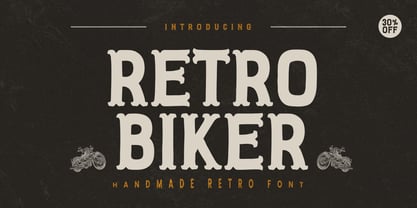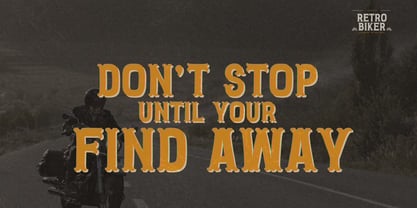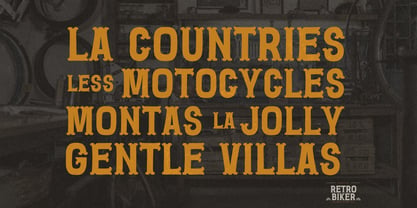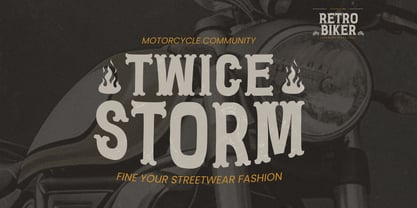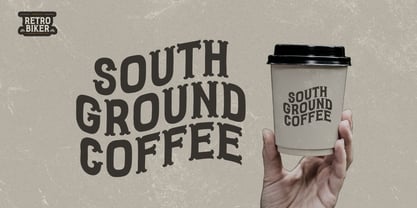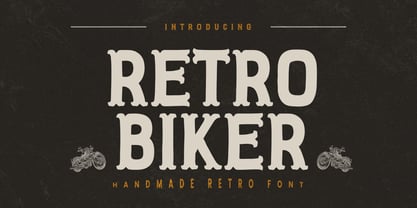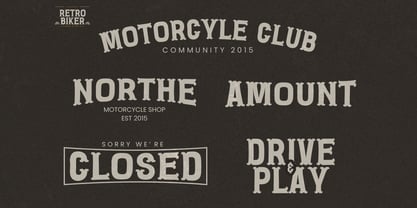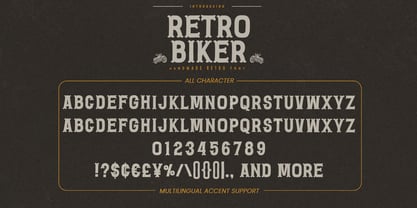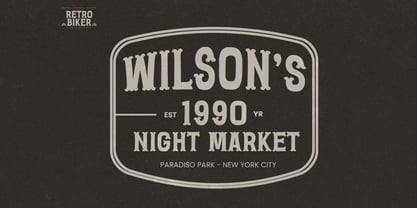
Retro Biker
von Gassstype
Die Schriftfamilie Retro Biker wurde von Abdul Malik Wisnu entworfen und von Gassstype veröffentlicht. Retro Biker enthält 1 Stile. Mehr über diese Familie
Retro Biker – Handmade Retro Font combines modern and retro styles seamlessly. This font is ideal for labels, posters, and project designs, offering an authentic and cool aesthetic. Perfect for a wide range of applications including quotes, branding, packaging, greeting cards, websites, photography overlays, signs, scrapbooking, tags, and much more! Retro Biker features a textured and unique characteristic, providing a more natural look. Additionally, you can activate ligatures for enhanced typography.
Designer: Abdul Malik Wisnu
Foundry: Gassstype
Retro Biker